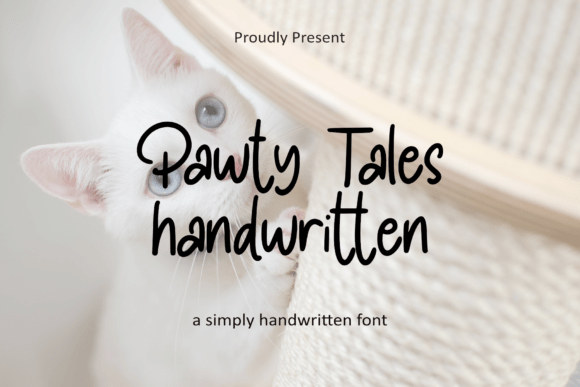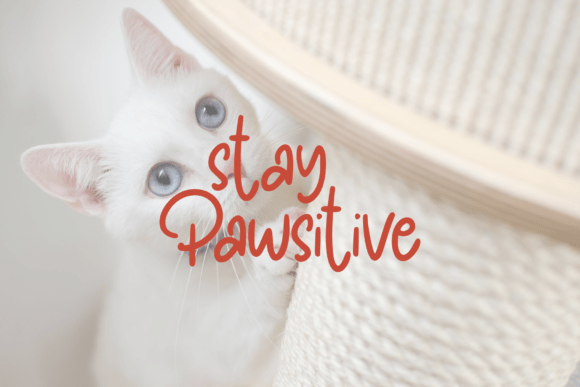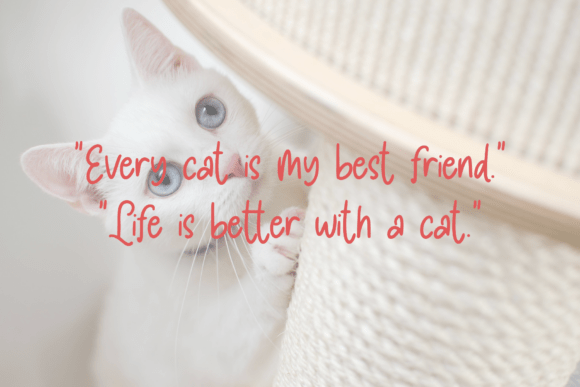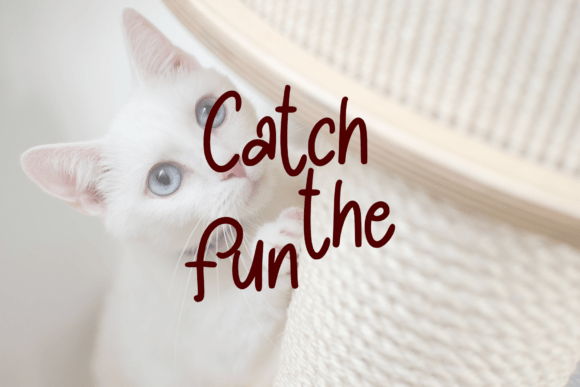
Pawty Tales Handwritten Font
About the Pawty Tales Handwritten Font
Let us introduce you to Pawty Tales Handwritten Font, where timeless design meets modern craftsmanship. Pawty Tales Handwritten is a delightful and playful handwritten display font, perfect for bringing a touch of fun and whimsy to your designs. With its charming, quirky letterforms, this font is ideal for creating joyful, lighthearted projects, from party invitations to playful branding, greeting cards, and beyond. The unique strokes and bouncy curves of Pawty Tales evoke the carefree spirit of a handwritten note, adding personality and warmth to any design. Whether you’re designing for children, pets, or just want to infuse your work with positive energy, Pawty Tales Handwritten is your go-to font for that extra bit of magic!
Pawty Tales Handwritten Font Usage Examples
Pawty Tales Handwritten Font Example